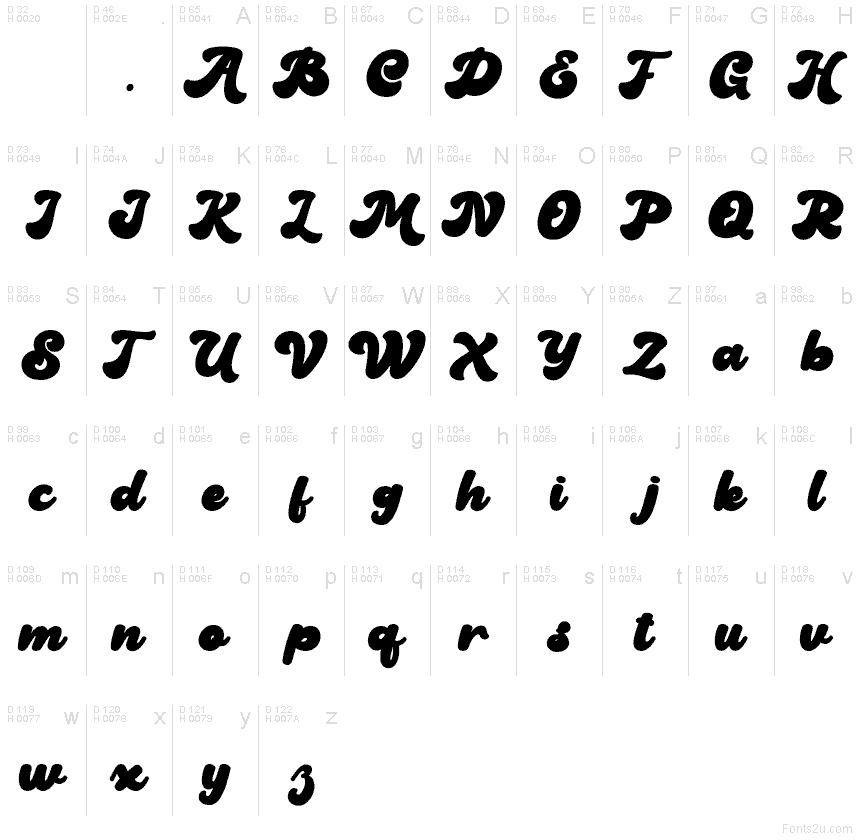
Magley Regular
Magley font designed by Achmad Yani is a brush display script font with bold letters and endings. The typography has subtle yet effective rounded edges that gives it a friendly overall personality. Thanks to its vintage appearance, for which mainly the wide letter spacing is responsible, this font can be your go-to for retro-oriented projects.
That being said Magley still fits modern designs in apparel and t-shirt printings, branding for coffee shops and restaurants, product packaging like beers and wine bottles or cans, posters and advertising signboards. Also labels on books’ covers can feature the free font’s sleek writings so it catches potential readers’ attentions.